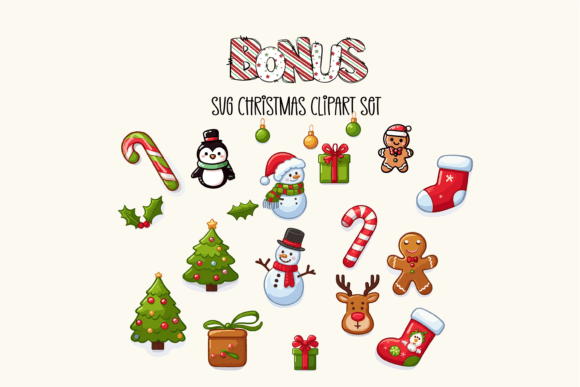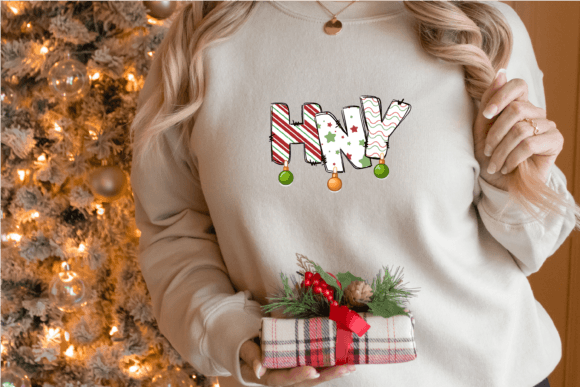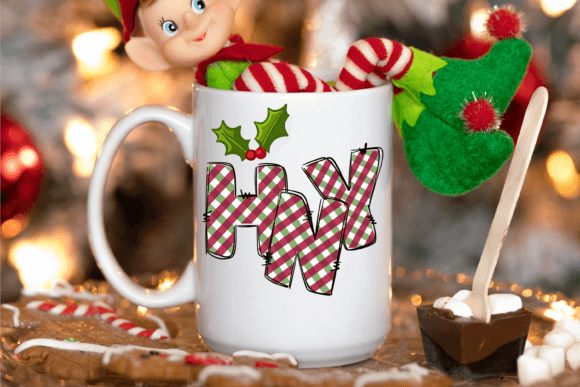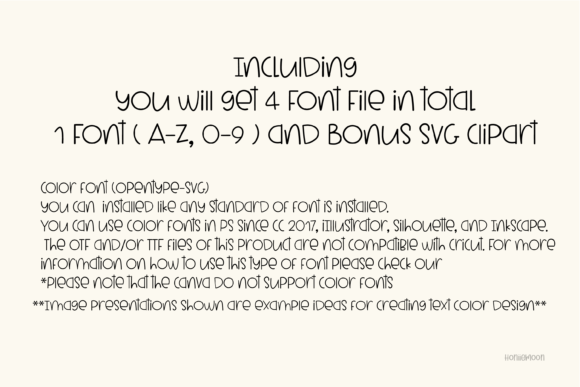
Christmas Cute Star Font
Christmas Cute Star Color Fonts for Festive Designs – Trendy Handwritten, Display, & Decorative Styles.
Enhance your festive designs with our creative alphabet fonts! Choose from trendy handwritten, display, and decorative styles for invitations, logos, posters, and more.